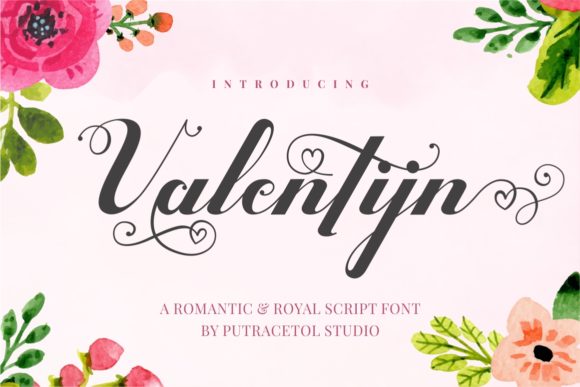
In a world where uniqueness reigns supreme and beauty captivates hearts, we present to you Valentijn, an exquisite script font that epitomizes romance and royalty. Its enchanting swirly letters, adorned with delicate heart elements, will cast a spell on your designs, transforming them into masterpieces that speak volumes.
Step into a world of captivating designs, where Valentijn's elegant curves and intricate details create a visual symphony. Its graceful strokes dance across your screens, evoking emotions and leaving a lasting impression on every viewer. Let your imagination soar as you explore the endless possibilities that this remarkable font offers.
With Valentijn, you'll create covers that captivate, posters that inspire, and logos that stand out from the crowd. Its versatility extends to quotes that resonate, product packaging that entices, and headers that demand attention. Unleash your creativity and let Valentijn guide you towards extraordinary designs.
Whether you're crafting social media posts that sparkle or greeting cards that warm hearts, Valentijn is your trusted companion. Its charm knows no bounds, adding a touch of magic to every project you undertake. Discover the enchanting realm of typography with Valentijn and let your designs take center stage.
Embrace the allure of Valentijn today and embark on a creative journey like never before. Its intricate beauty and boundless versatility will elevate your designs, transforming them into works of art that capture hearts and leave an everlasting legacy.